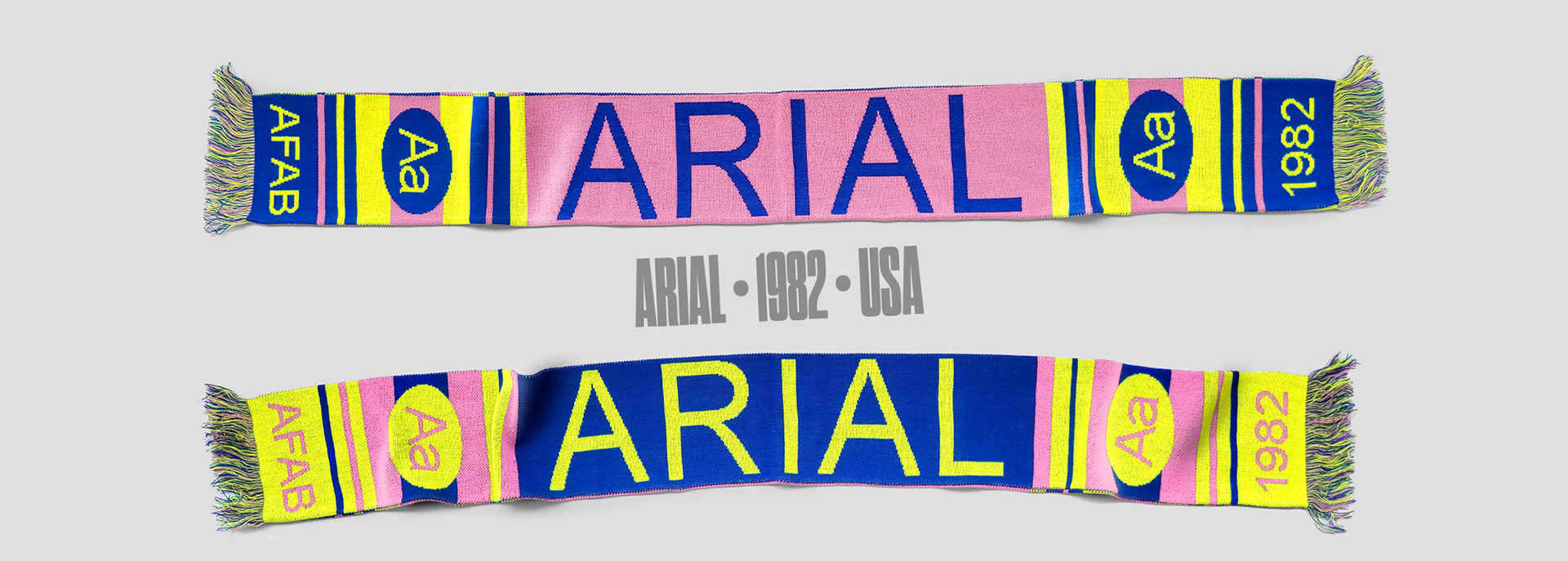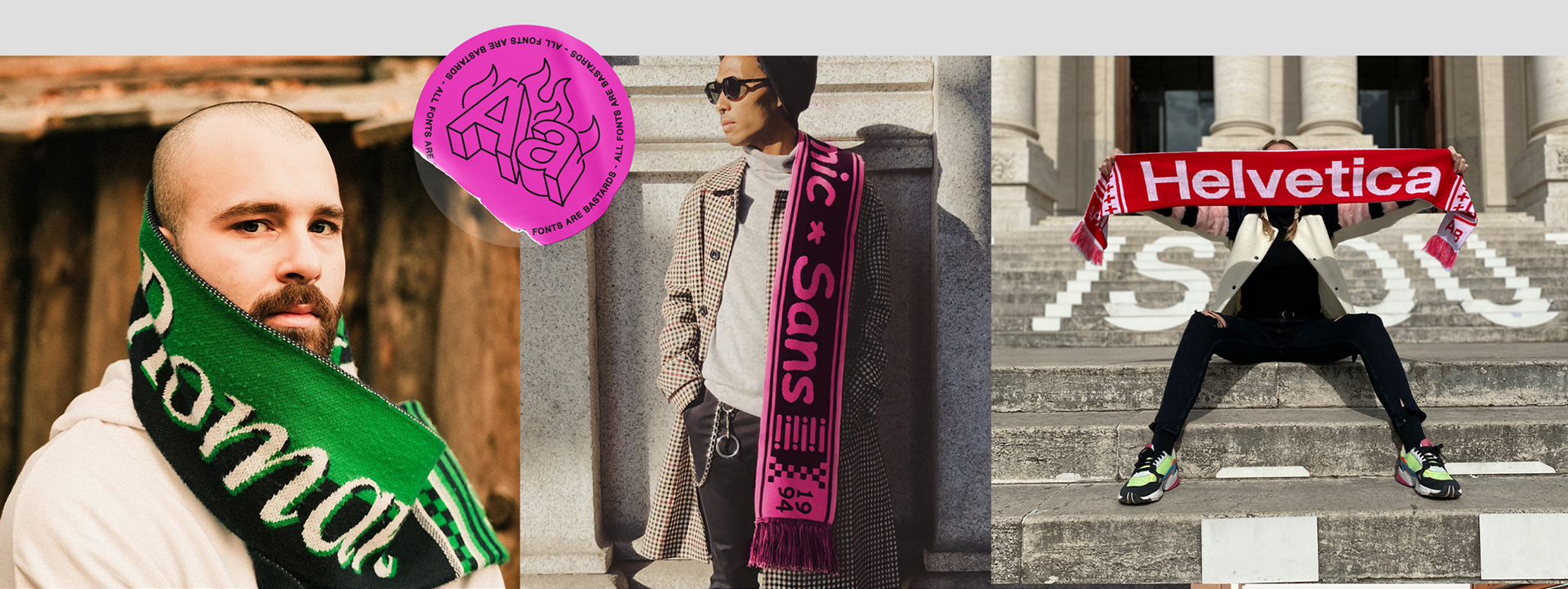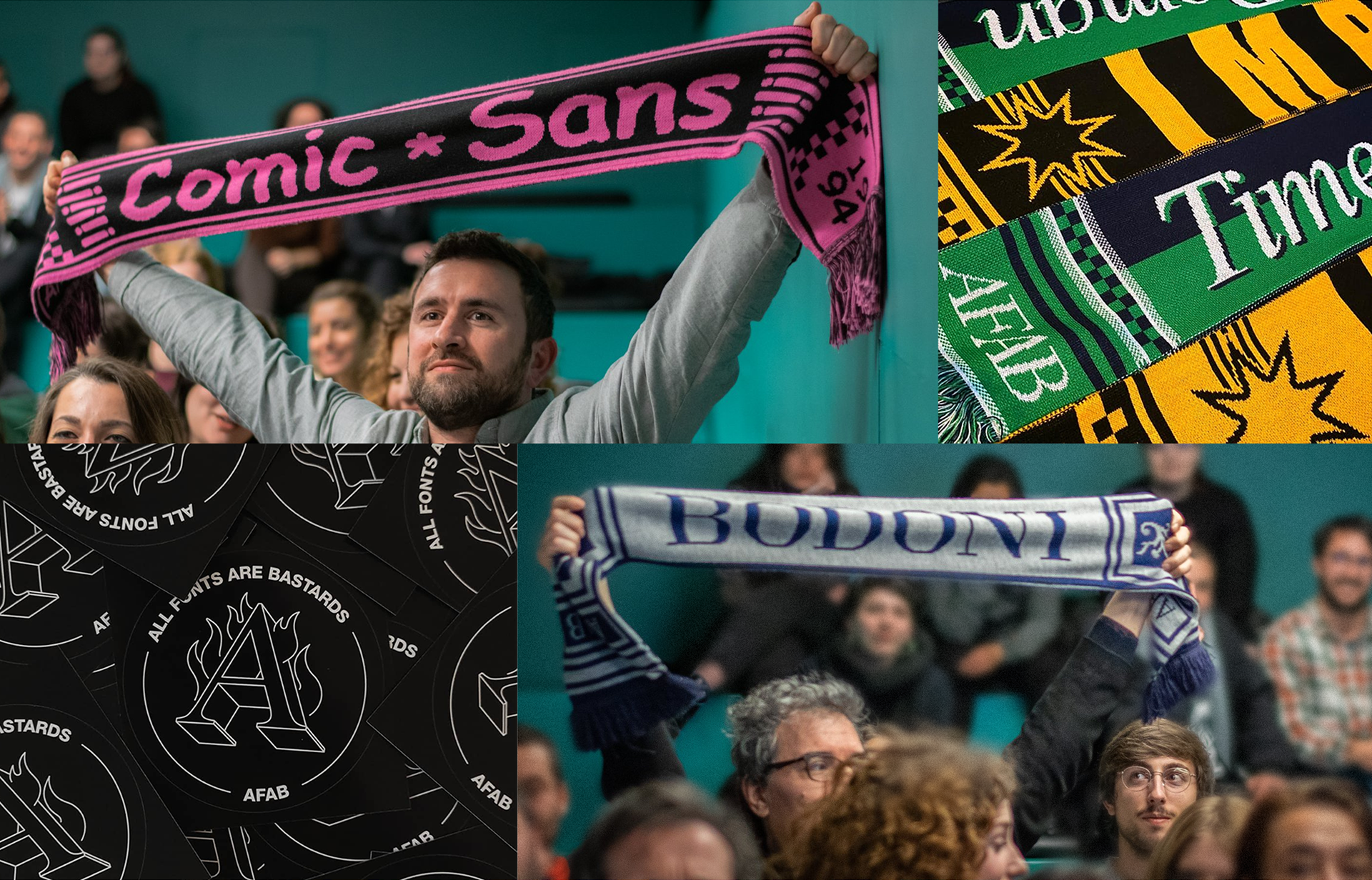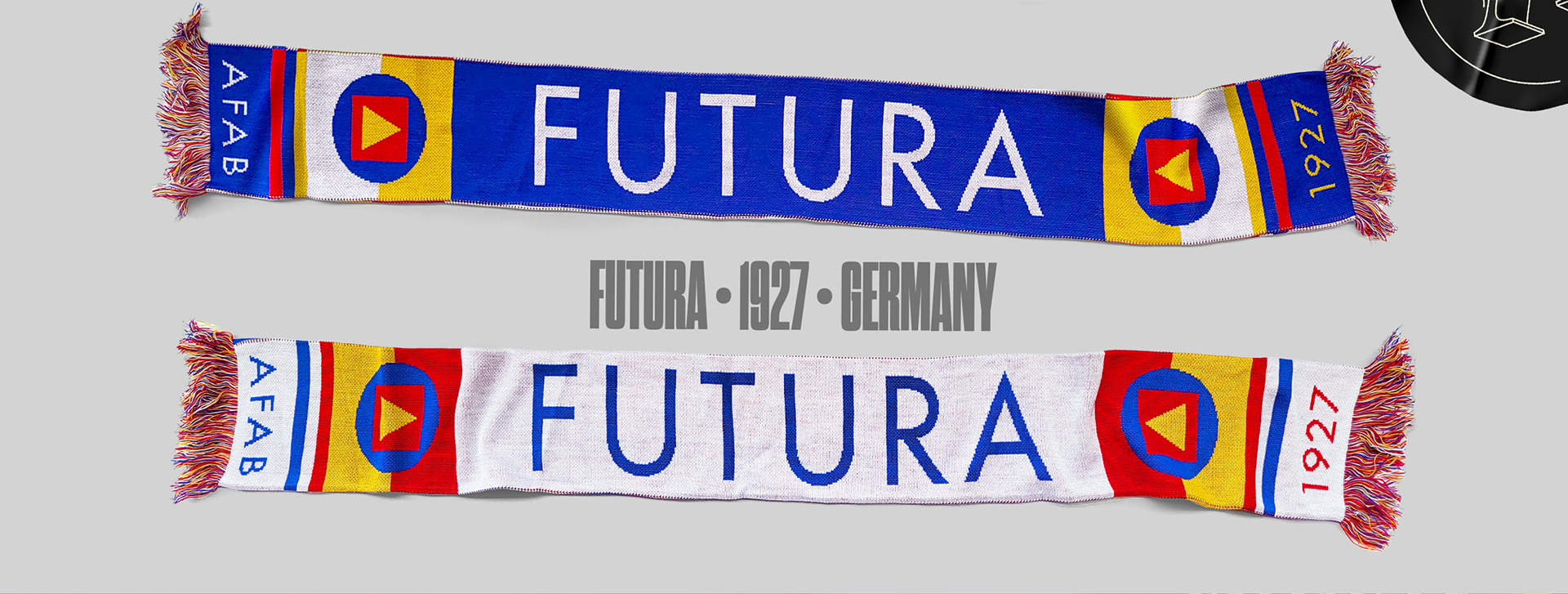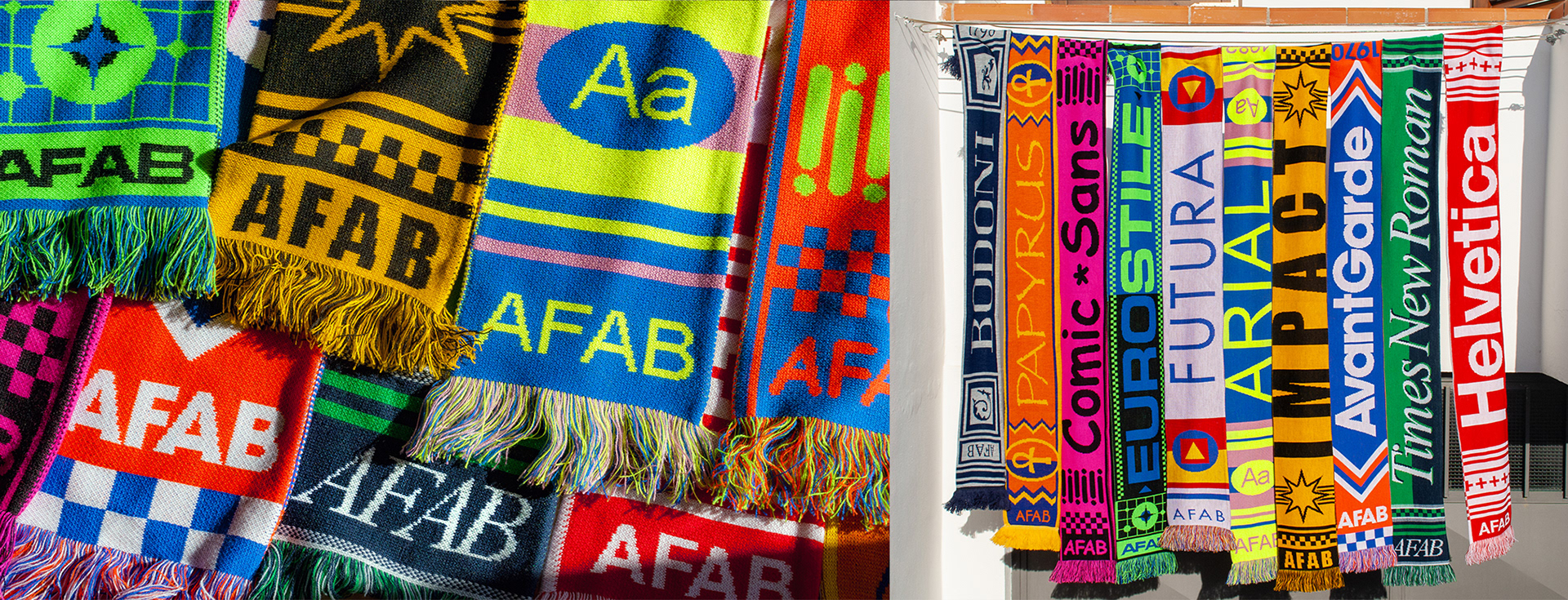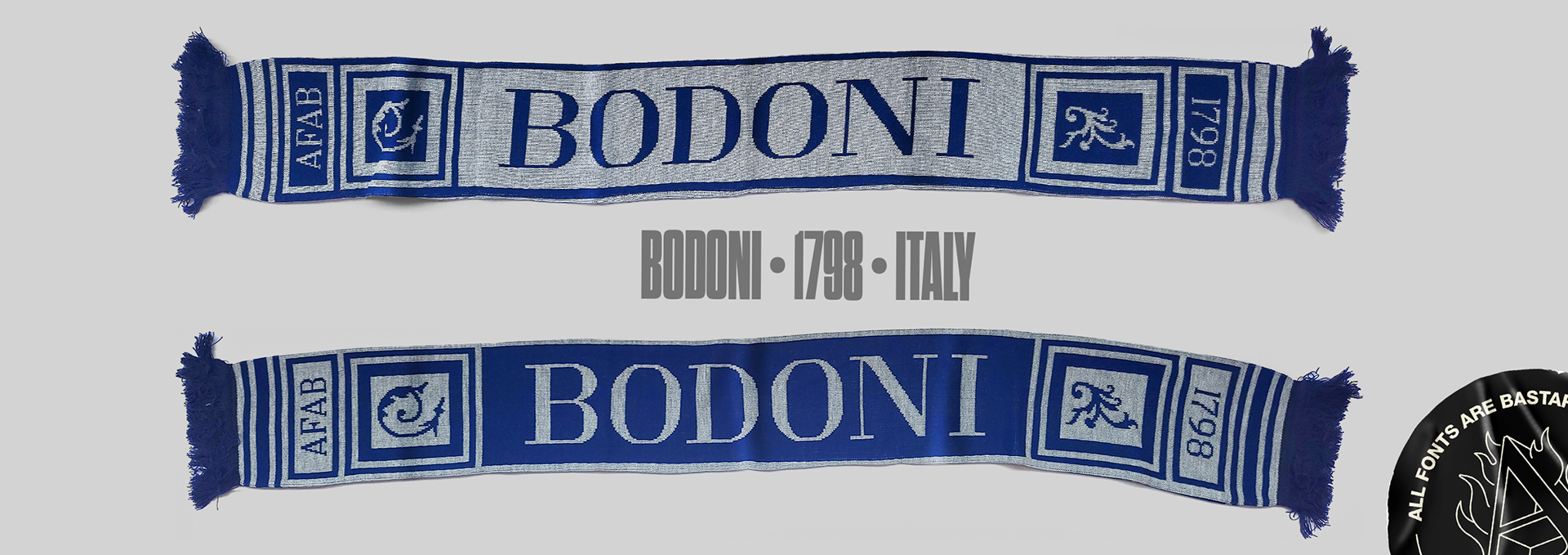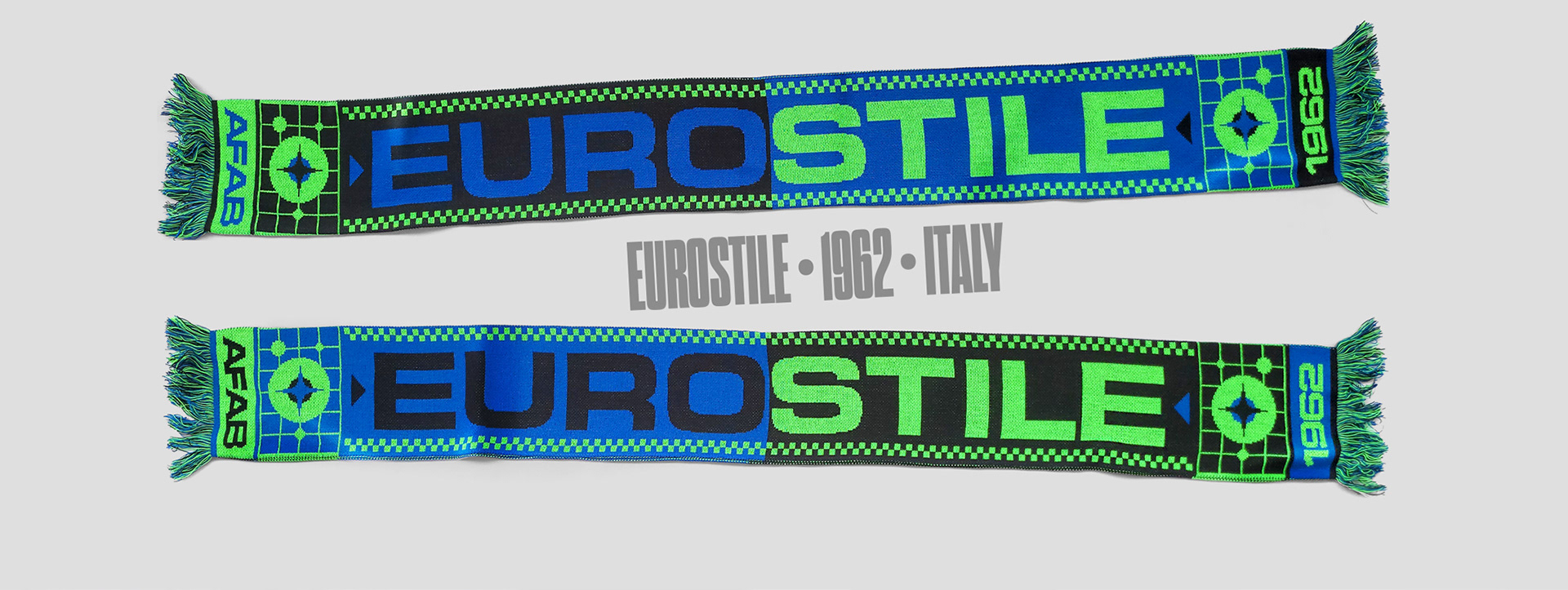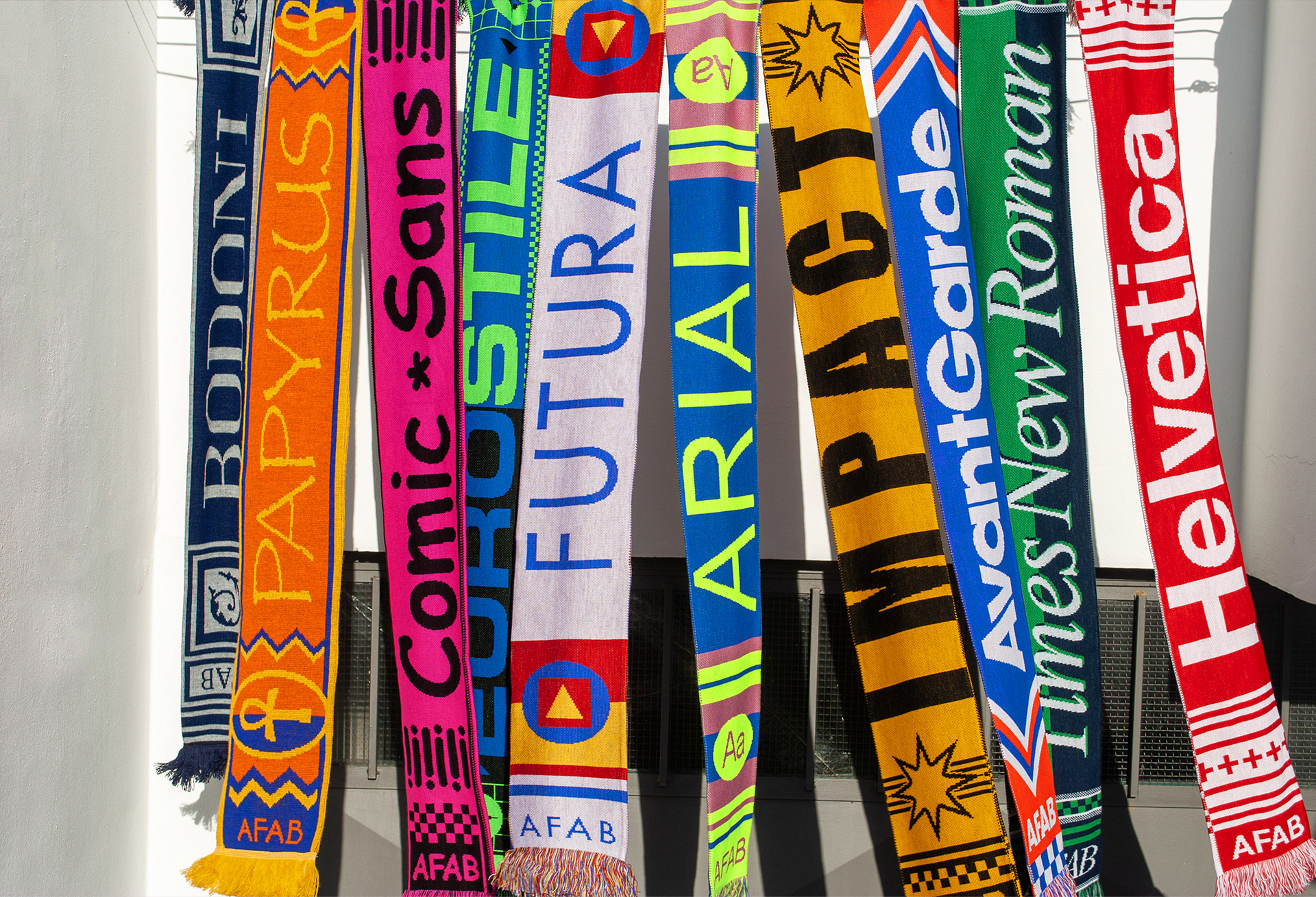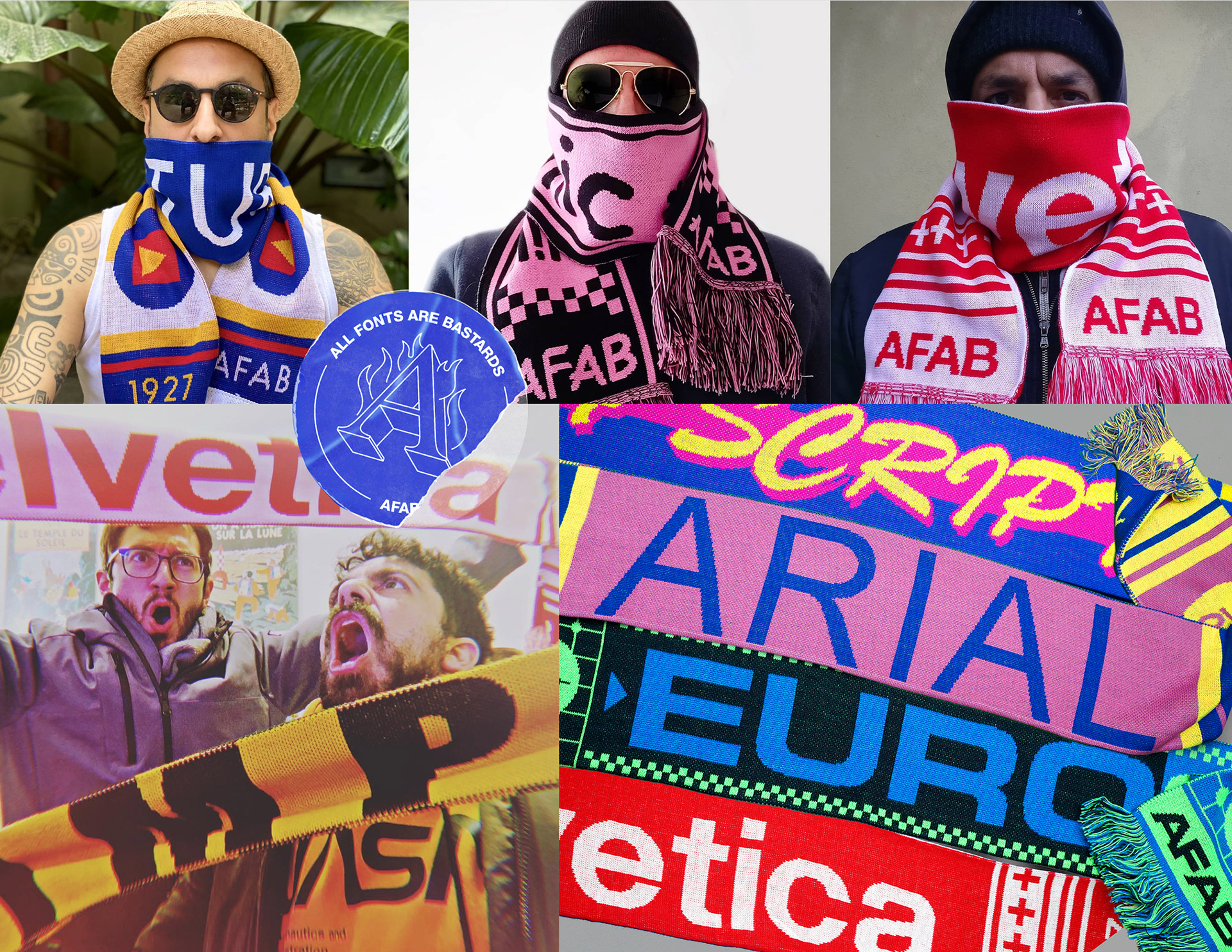
All Fonts Are Bastards
In 2019, Andrea Romeo, Michela Ciommo, and I joked about creating football scarves inspired by fonts.
The idea stuck so much that we decided to actually make it happen. It pushed us to navigate production challenges, but introduced us to amazing people and events like For Friends Not For Brands and Type Thursday.
We created scarves for fonts ranging from playful (Comic Sans, Papyrus) to serious (Futura, Bodoni), capturing their essence in a unique way. The goal was simply to bring a quirky idea to life and share it with the world.